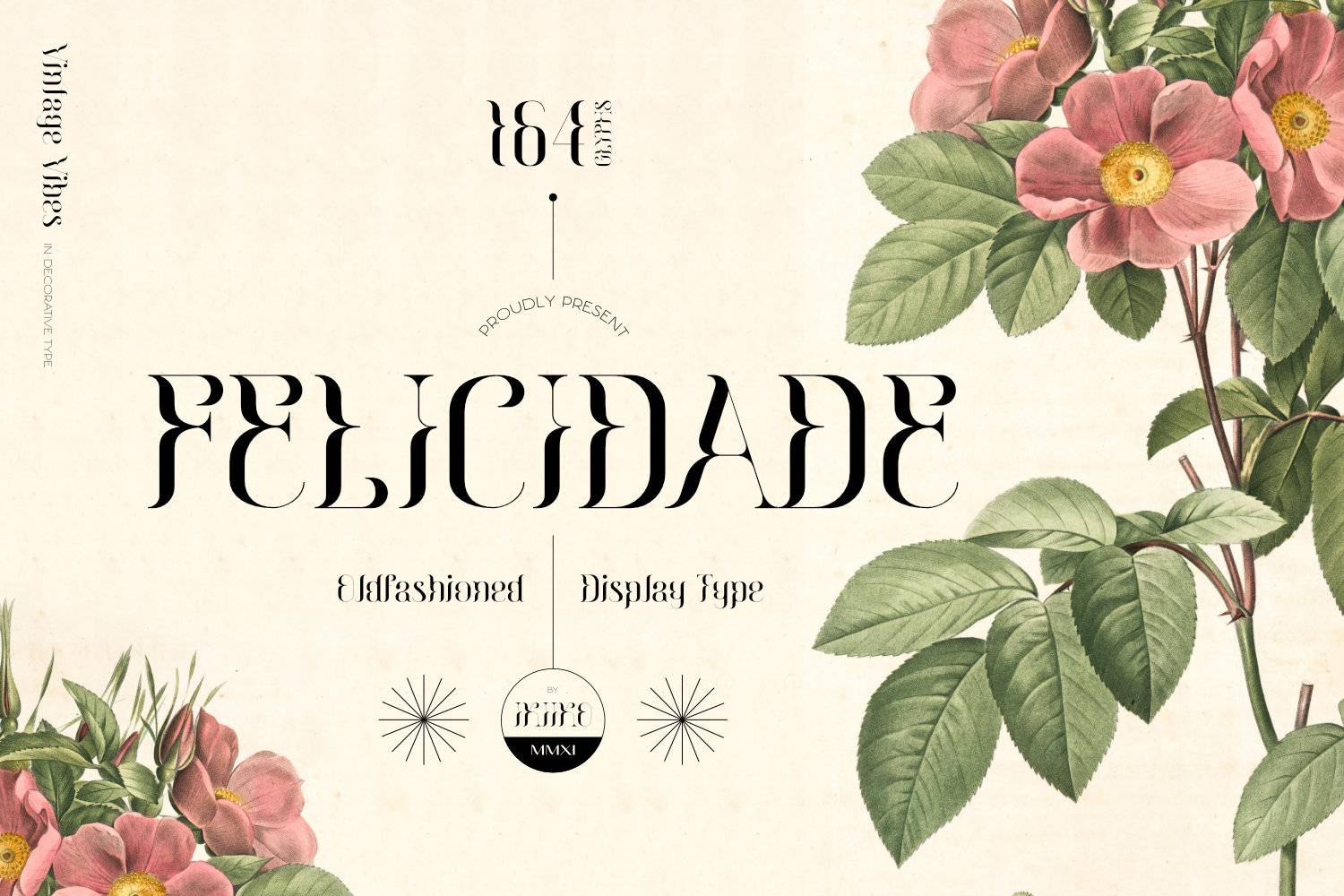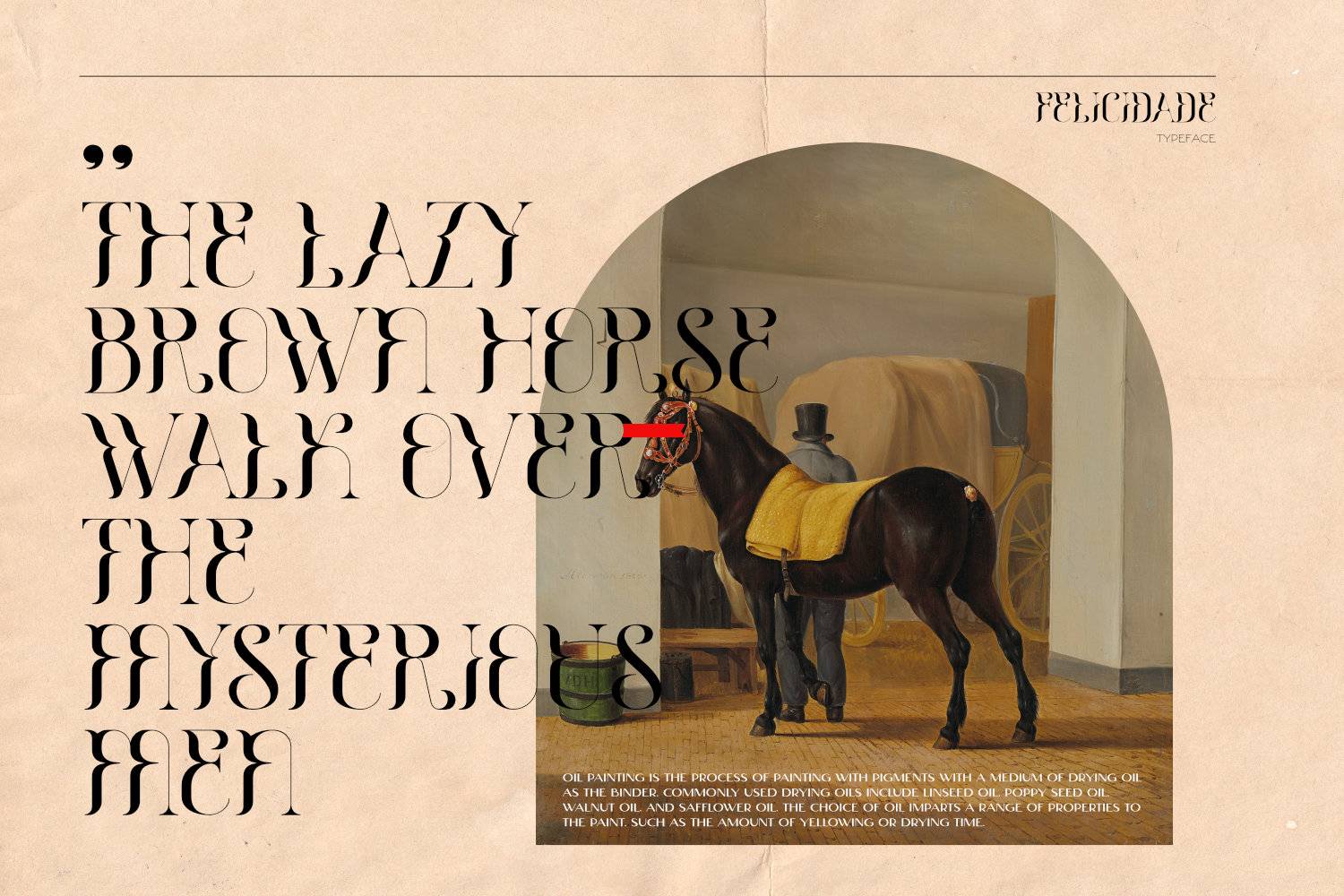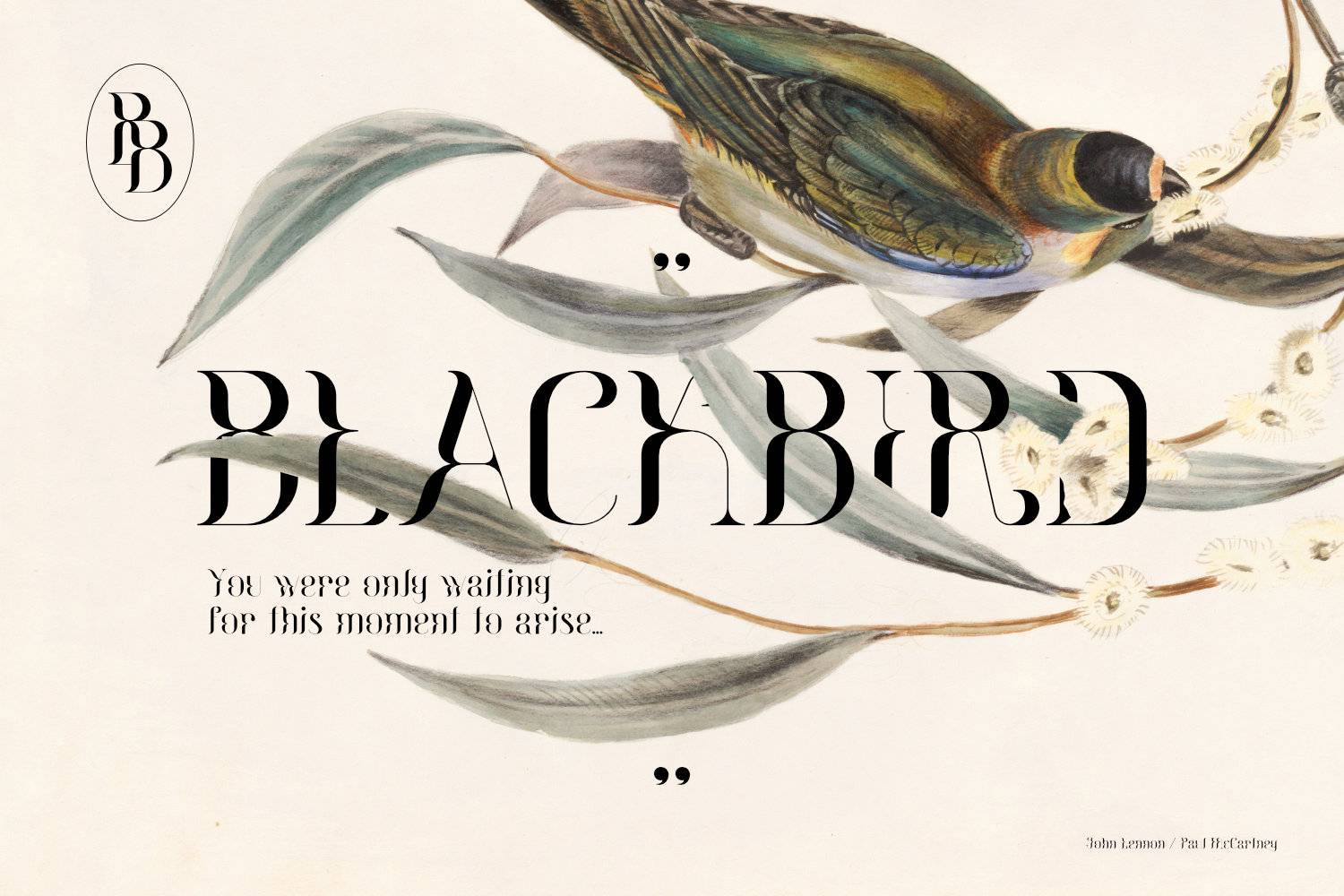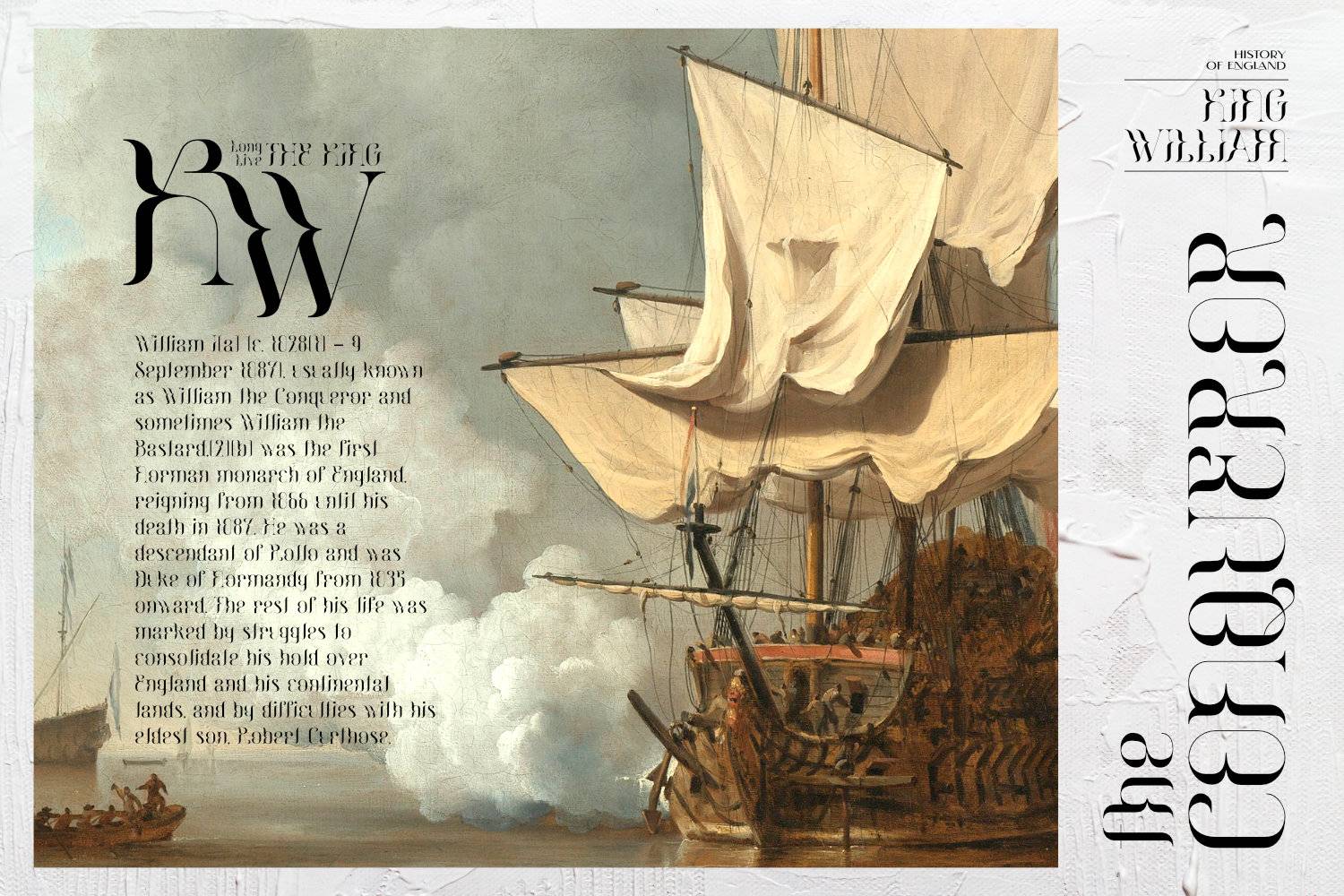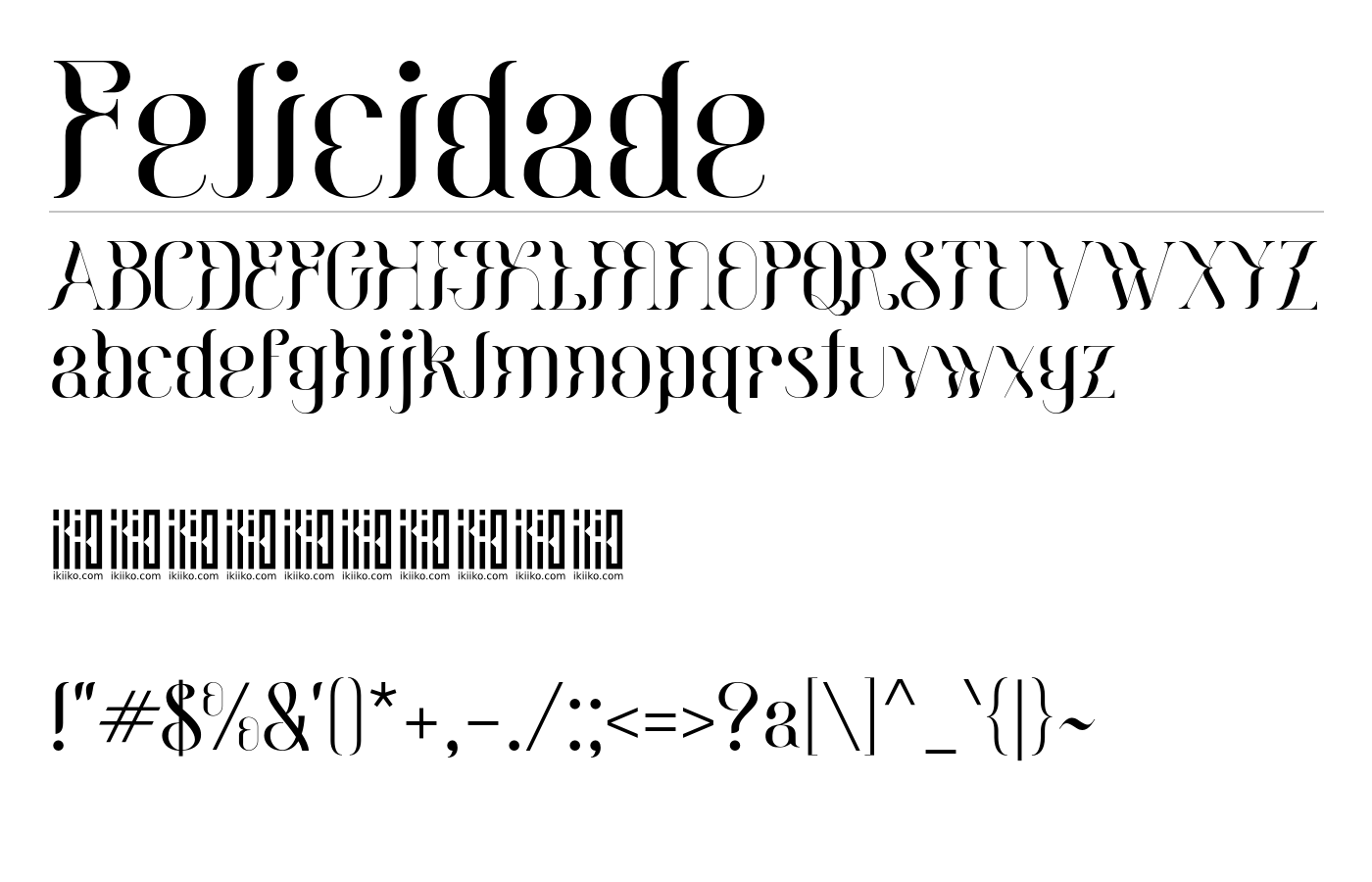
Felicidade is a striking serif font with a tall, narrow structure and a high contrast between thick and thin strokes, giving it an elegant and sophisticated feel. Its unique, almost calligraphic letterforms with delicate curves and sharp terminals make it perfect for fashion branding, luxury packaging, or artistic headlines where a distinctive and refined look is desired. This font works best in display uses, adding a touch of modern elegance and creative flair to any design.
Felicidade Font
About Felicidade Font
| Font family | Felicidade Font |
| Designer | Andhika Pradana, Wahyu Eka Prasetya |